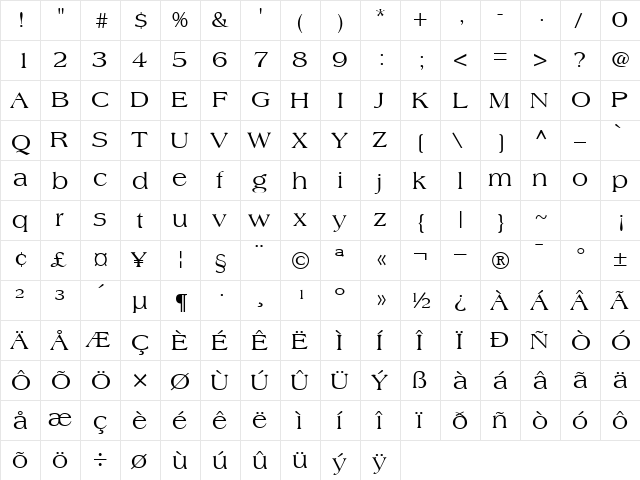
Amalcan Normal
Design Context for Amalcan Typeface
Amalcan is a composed and adaptable typeface that performs quietly and consistently across a wide range of design contexts.